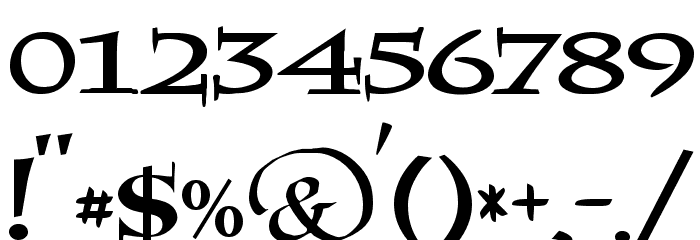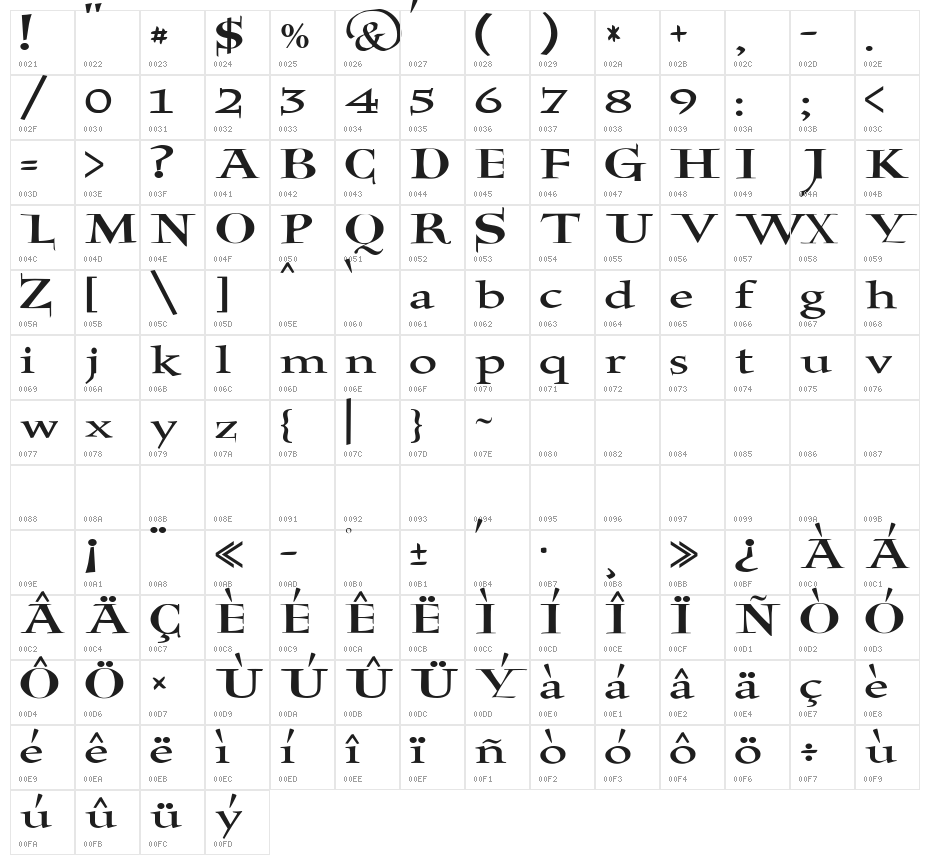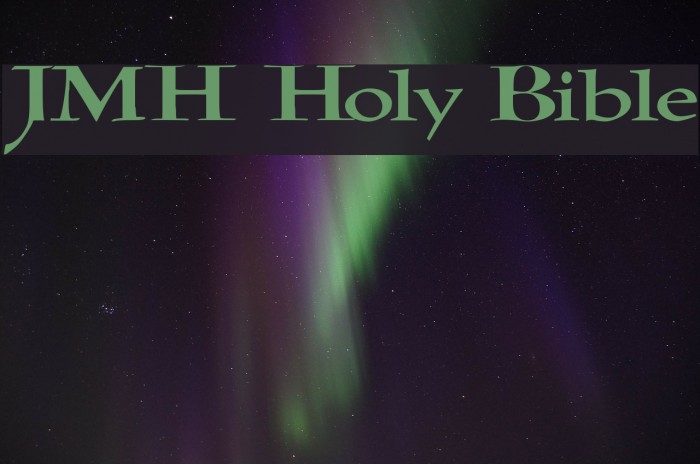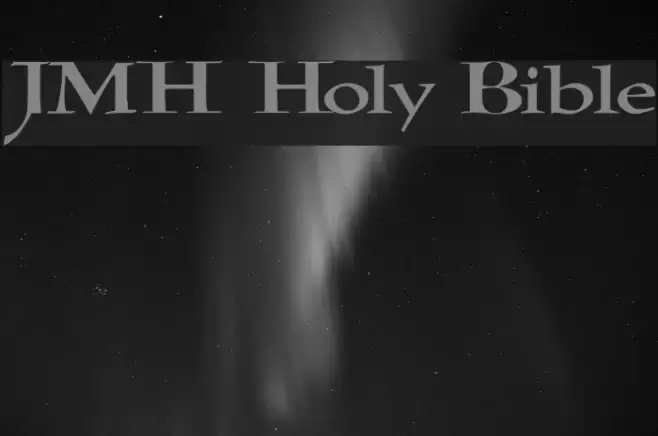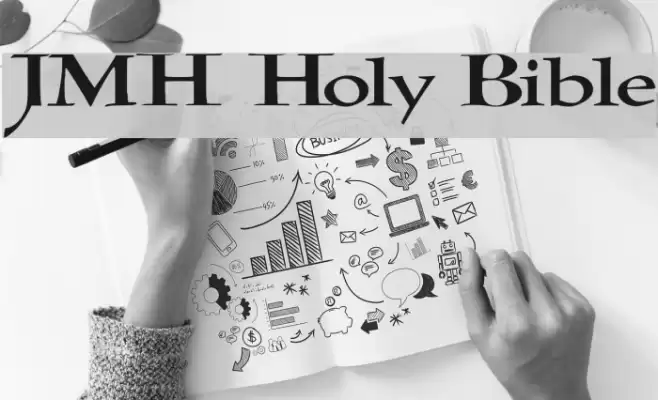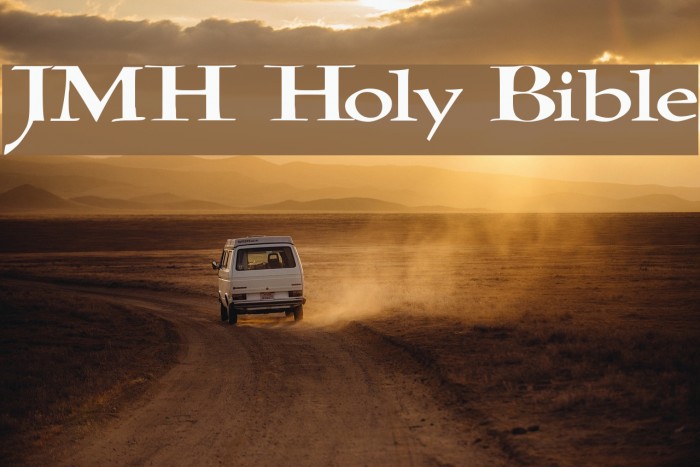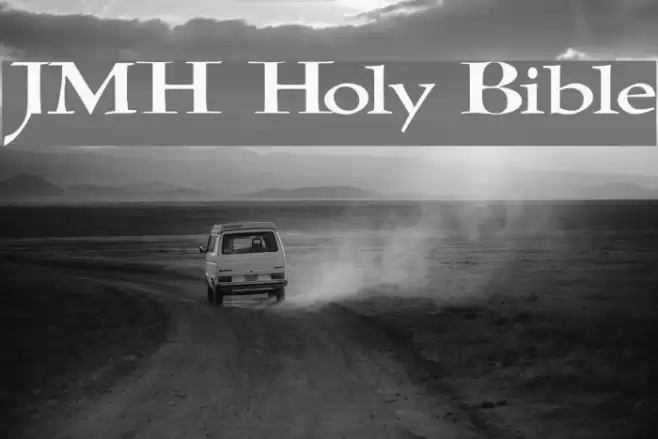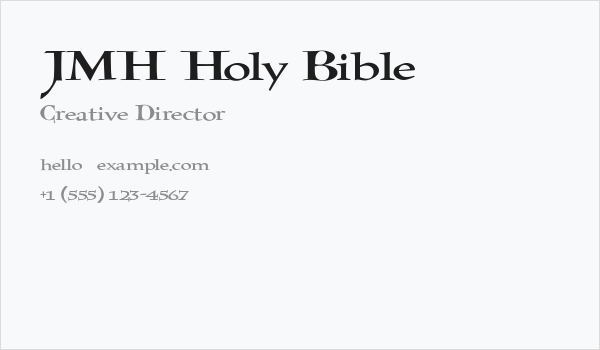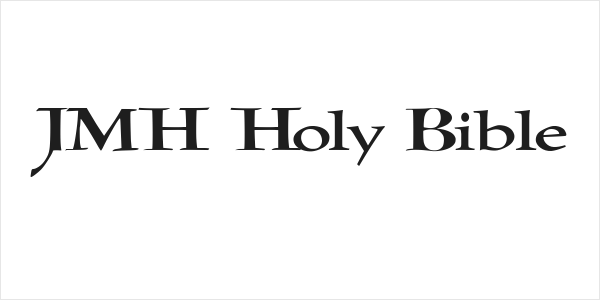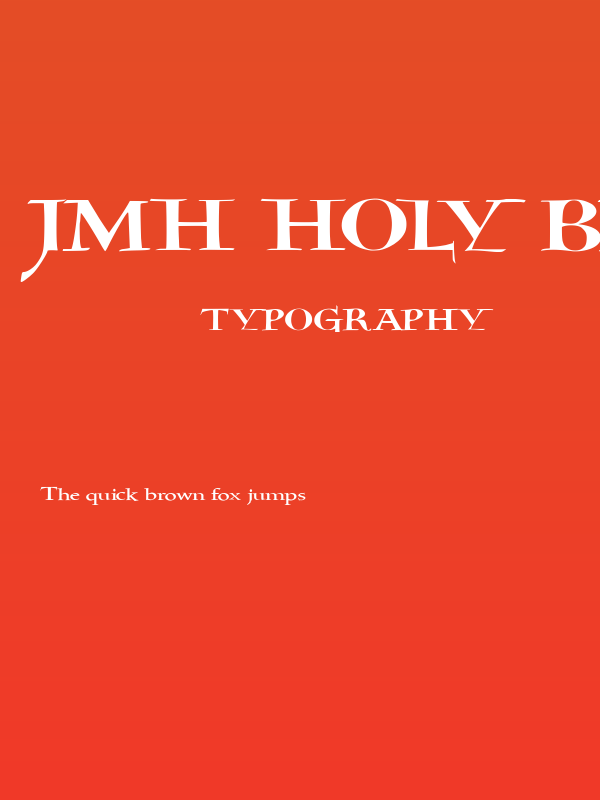
JMH Holy Bible Font
This font features a striking and elegant design, characterized by its sharp serifs and high contrast between thick and thin strokes. The uppercase letters exhibit a classic and authoritative presence, with unique embellishments that add a touch of sophistication. The lowercase letters maintain a harmonious balance, complementing the uppercase with their refined curves and consistent style. Numbers and special characters are crafted with the same attention to detail, ensuring a cohesive look across all elements. The overall appearance is reminiscent of traditional calligraphy, yet it maintains a modern edge that makes it versatile for various applications.
A sophisticated serif font with sharp serifs and high contrast, blending classic and modern elements.
• Proposed Projects: Ideal for book covers, formal invitations, branding for luxury products, and editorial design.
• Use Case: Headlines, Logos, Editorial design